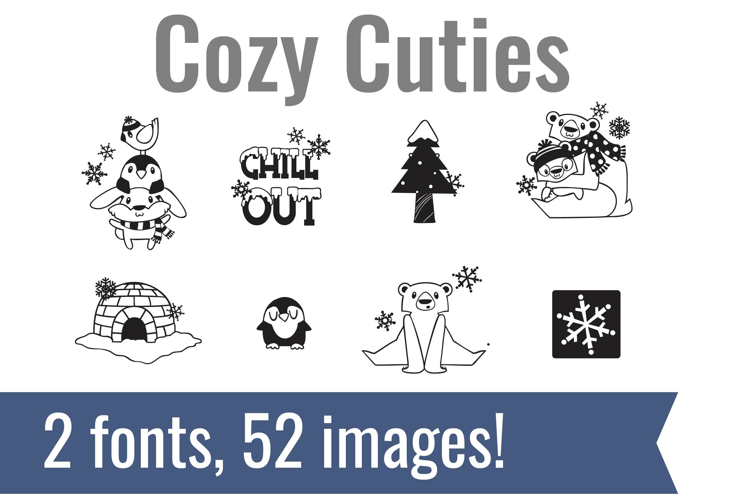
Cozy Cuties Dingbats
Unlock endless creativity with two perfectly coordinated fonts! There are two dingbat fonts in this bundle, featuring the cutest, winter animals chilling out in winter and getting ready for Valentines day.